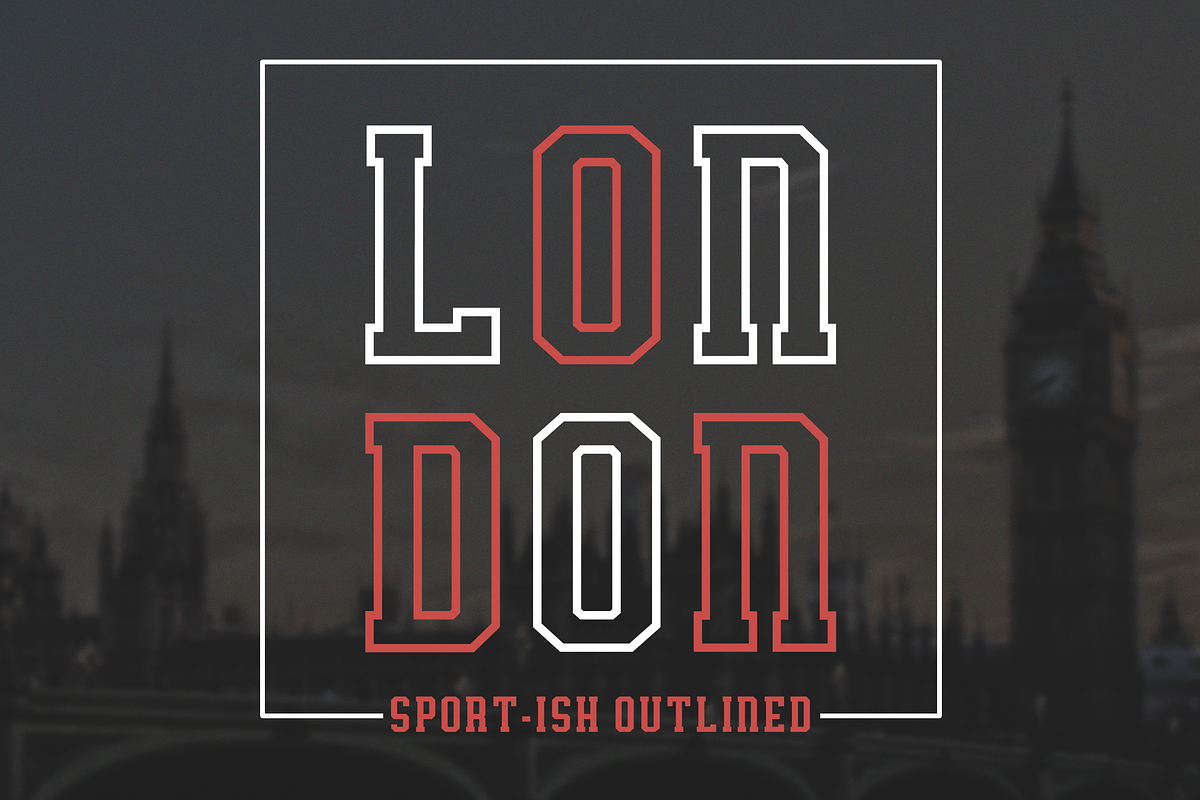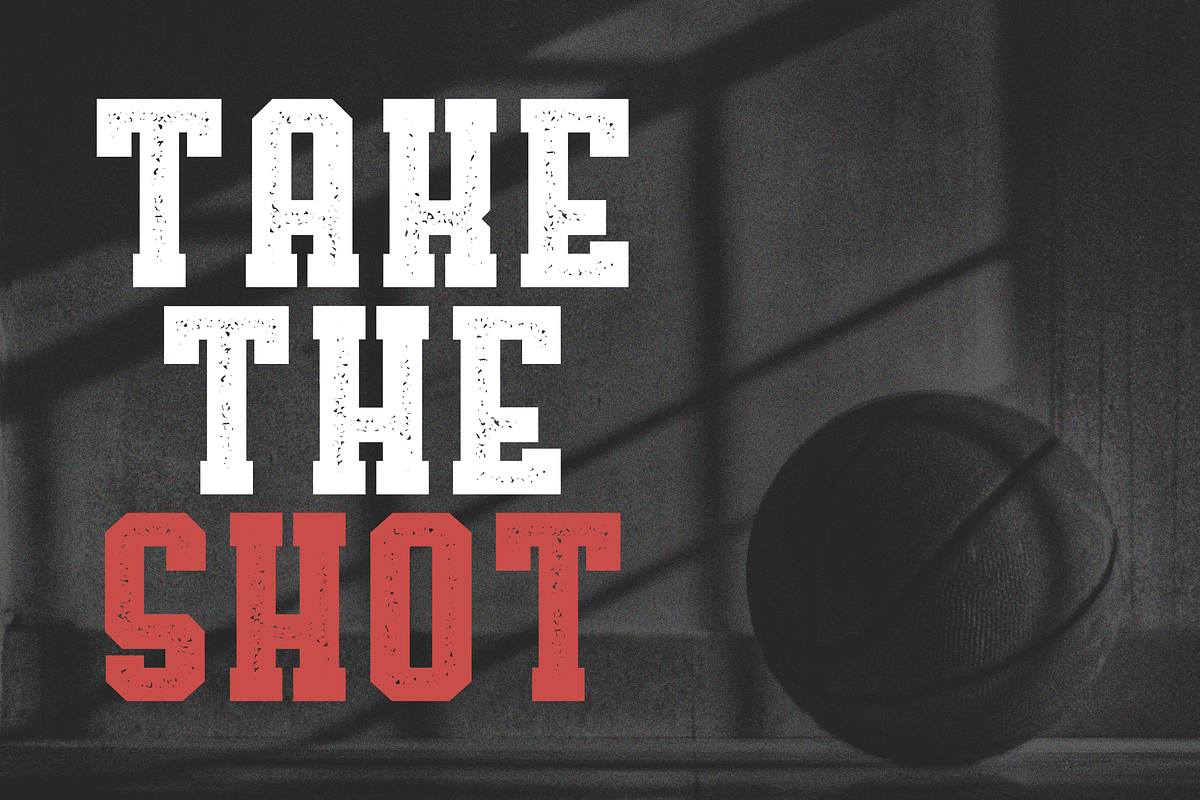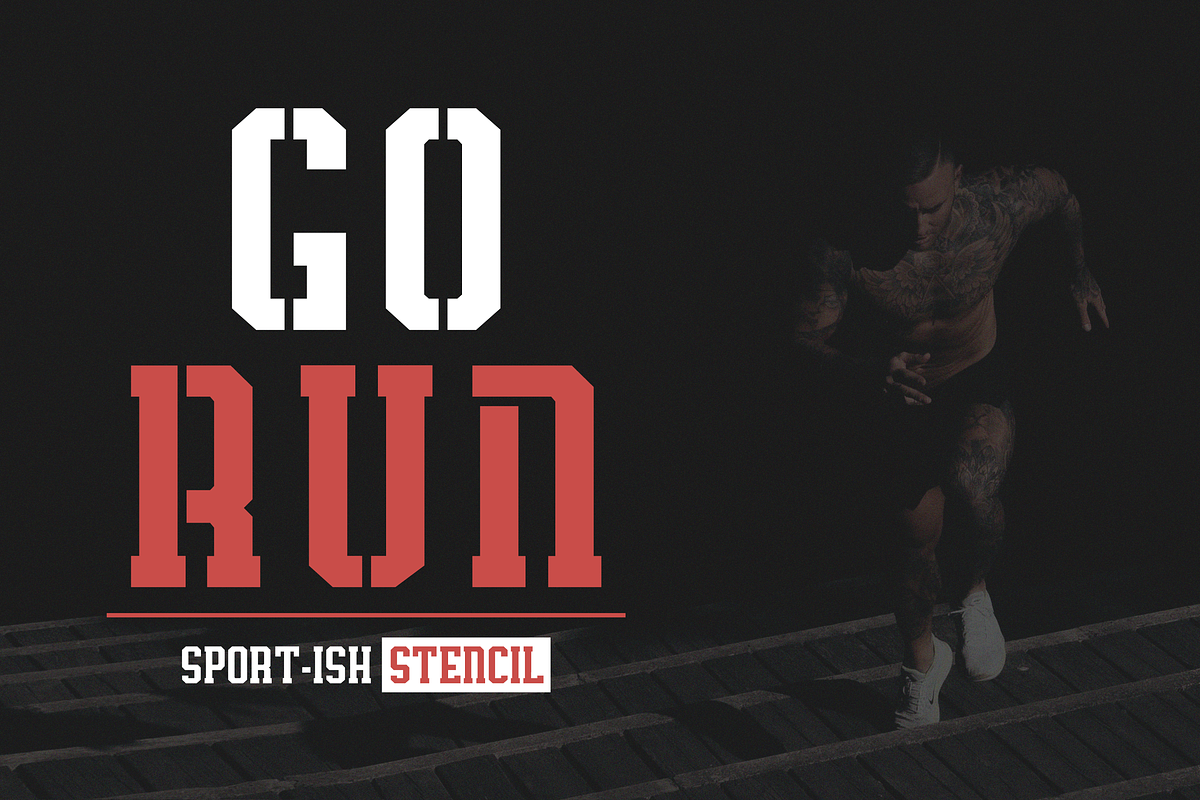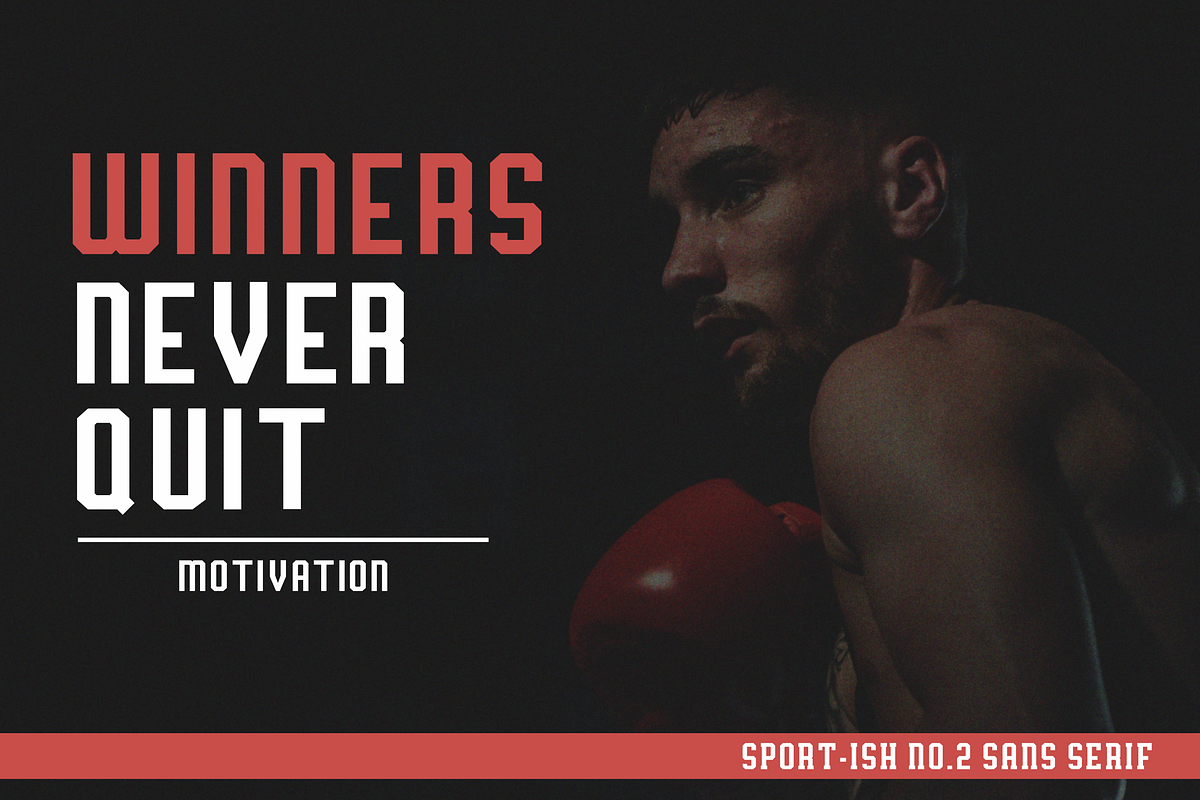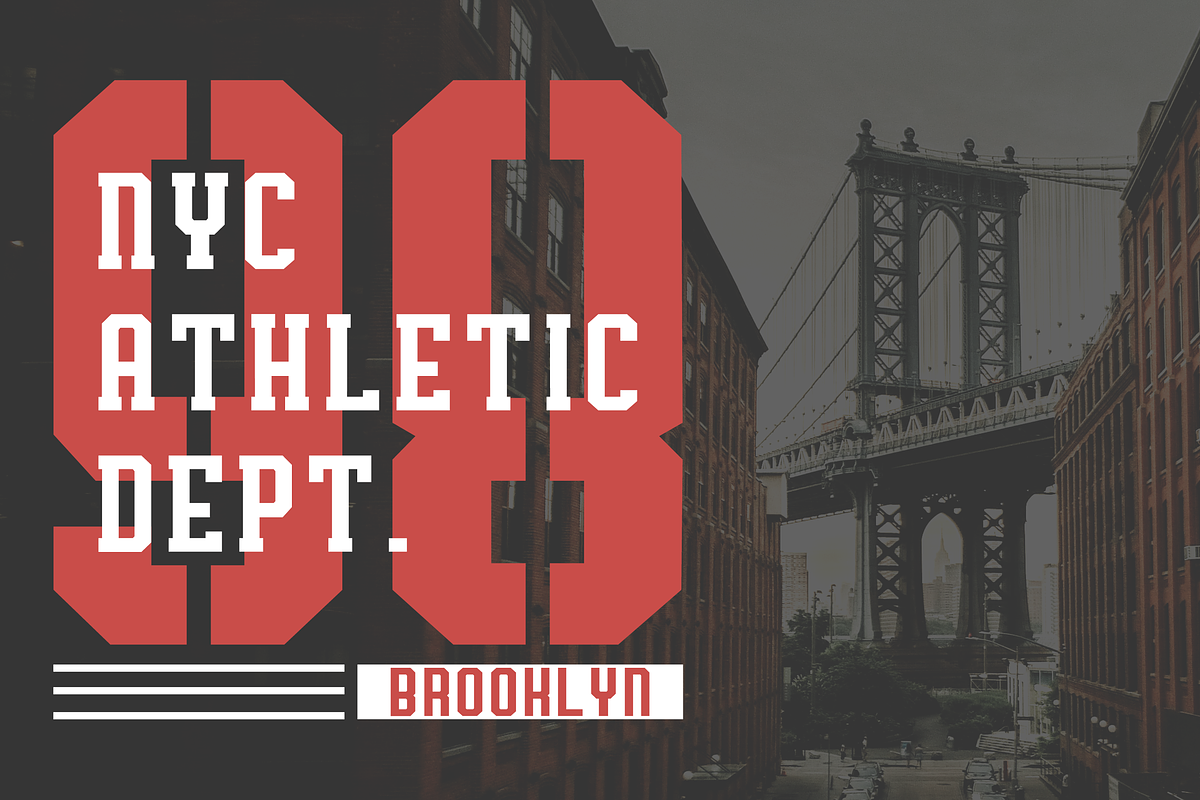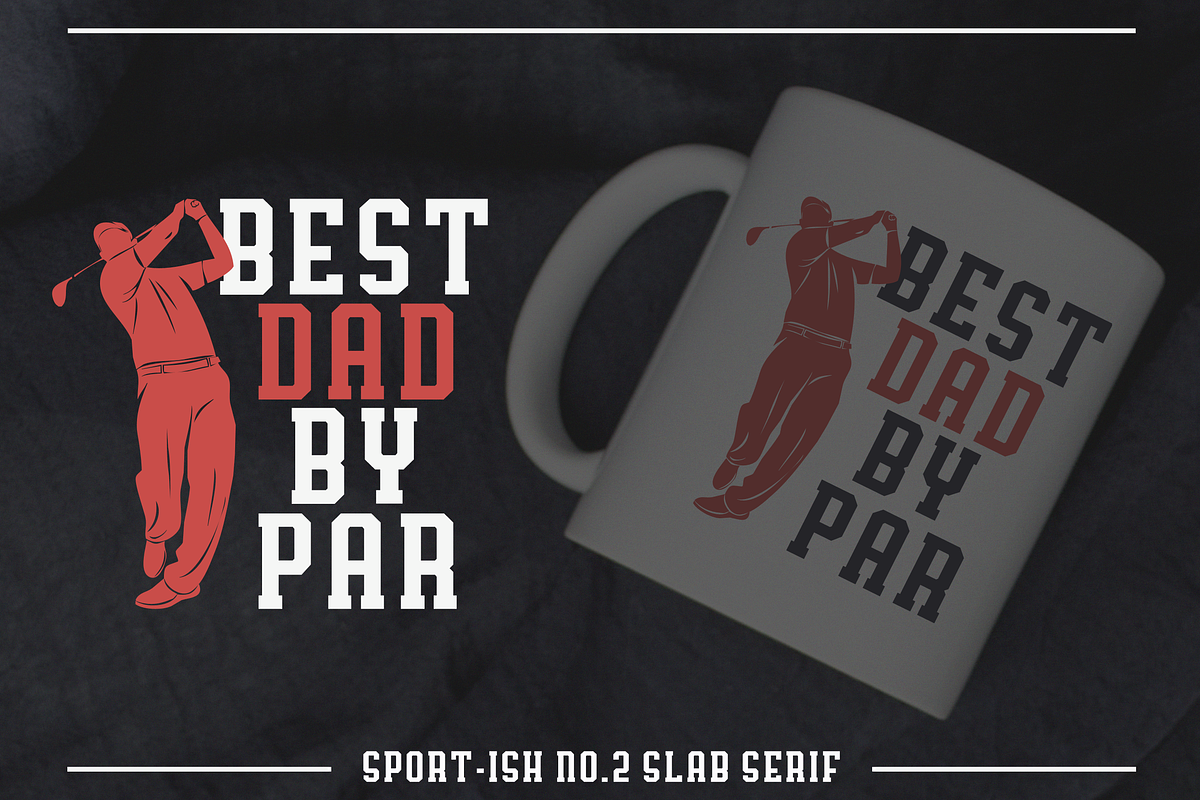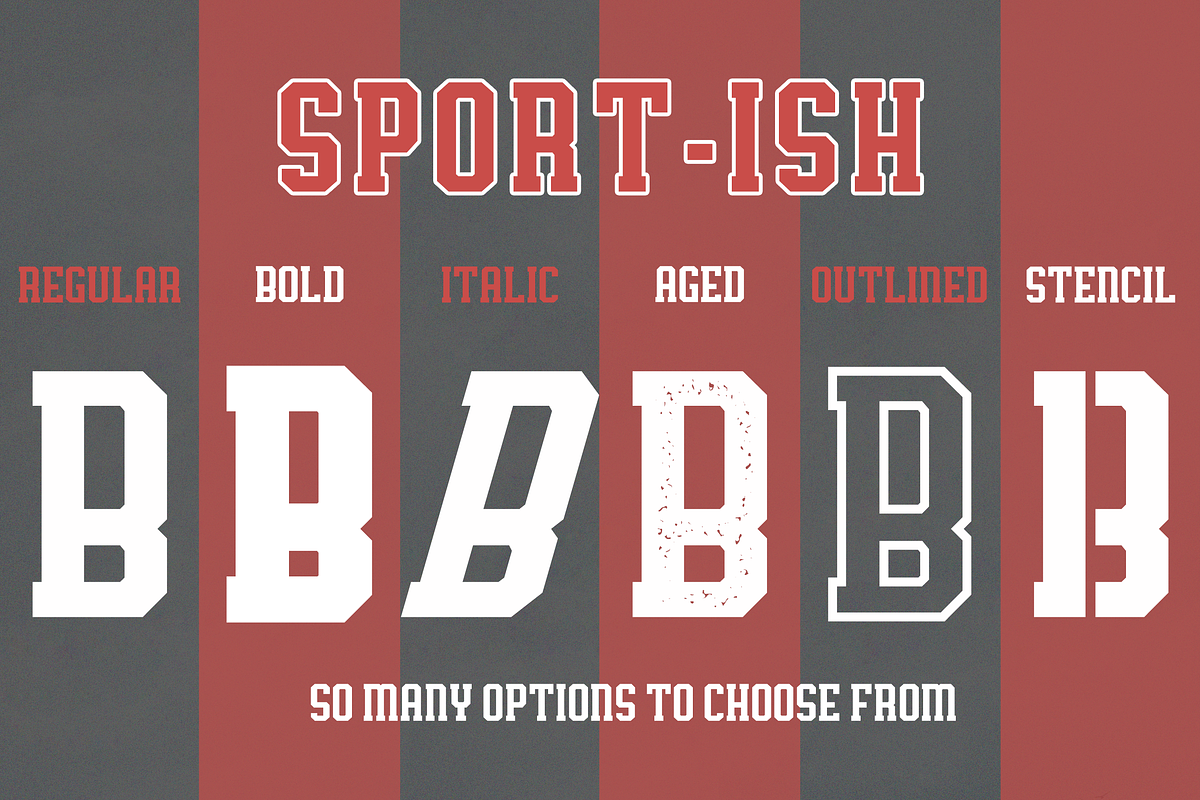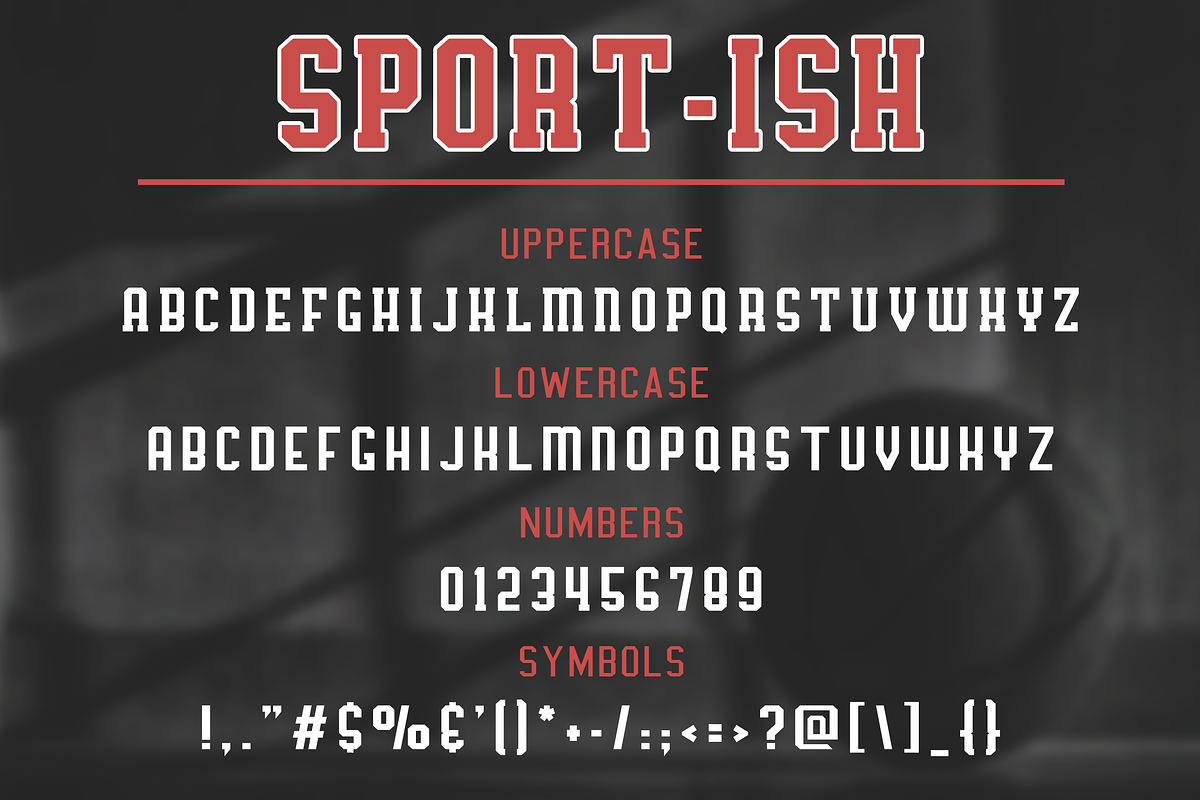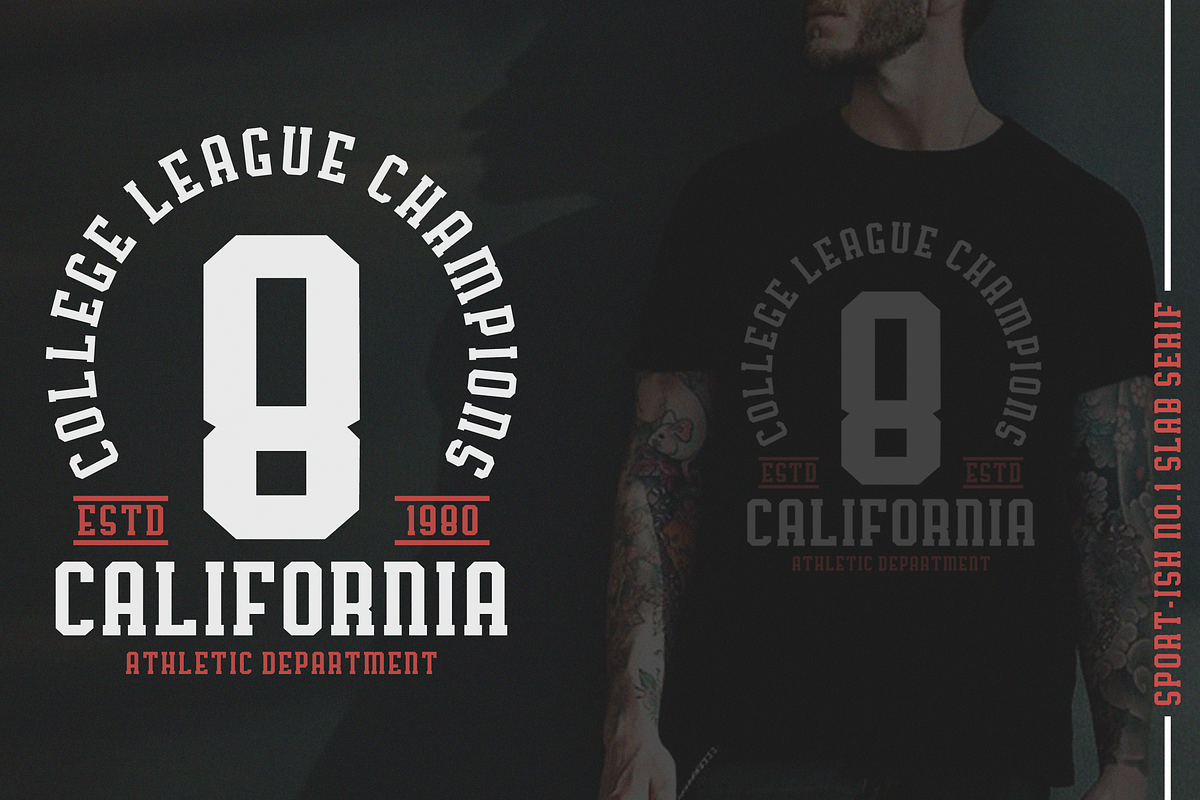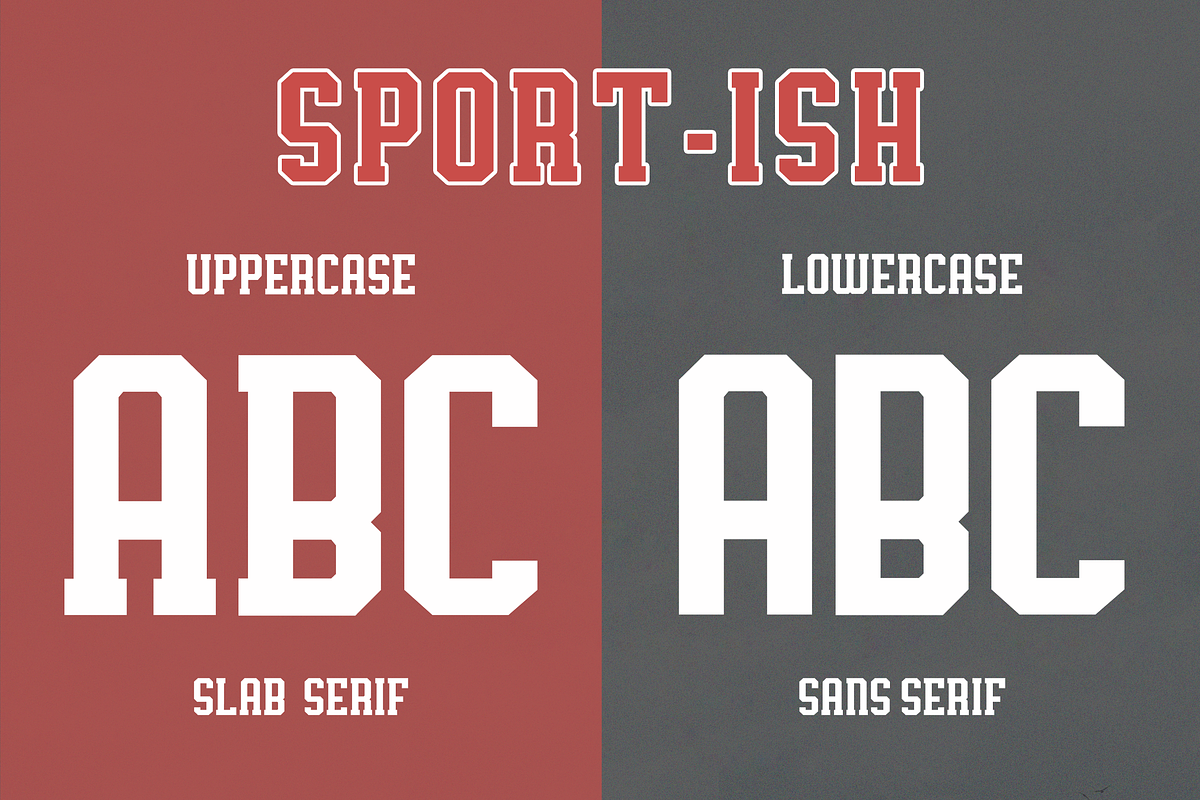
Sport-Ish Display Typeface
Sport-Ish is another awesome versatile sporty font with a more modern feel. Sport-Ish is available in two variants: Sport-Ish 1 & Sport-Ish 2 and is packed with six different styles (Regular, Bold, Italic, Aged, Stencil & Outlined).
This set is an all-caps sport font, complete with letters, symbols, and numbers. Sport-Ish display typeface family comes in slab serif (uppercase) and sans serif (lowercase).
Perfect for headlines, university sweaters, banners, logo design, sports branding, school posters, and other stunning design work.